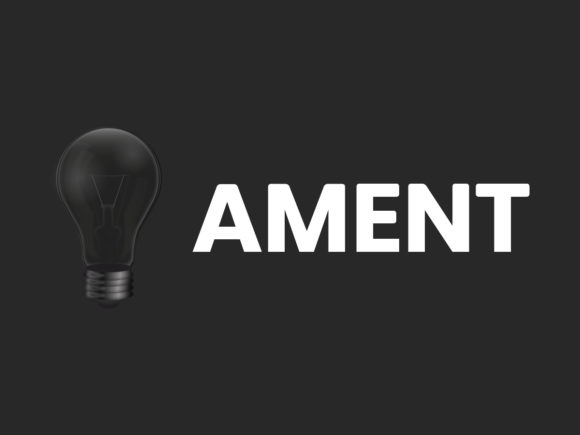
The Ament Font: A Designer’s New Best Friend
I still remember the frustration of working on a branding project, only to get stuck on finding the perfect font. My client wanted something modern, clean, and versatile, but I just couldn’t seem to find it. That was until I stumbled upon the Ament font. With its sleek, sans-serif design, I knew I had found a winner. In this article, I’ll share my experience with the Ament font, its features, and how to make the most of it in your designs.
An Honest Review of Ament Font
- ✨ Minimalist design: Ament’s clean lines and simple shapes make it perfect for a wide range of design projects.
- ✅ Versatility: This font is suitable for branding, product packaging, invitations, quotes, t-shirts, labels, posters, logos, and more.
- 💡 Legibility: Ament’s clear and concise design ensures that your text is easy to read, even at small sizes.
- 🤔 Limited character set: Ament has a standard character set, but it may not include some specialized characters or glyphs.
- ⚠️ No italic version: Ament only comes in a regular and bold weight, which may limit its use in certain design situations.
The Story Behind Ament Font
Ament font was designed with the goal of creating a clean, modern sans-serif font that’s both versatile and legible. The designer, inspired by the simplicity of urban landscapes, aimed to create a font that’s both elegant and approachable. With its sleek lines and simple shapes, Ament font is perfect for designers looking for a reliable, go-to font for their projects.
| What is the Ament font best used for? | The Ament font is suitable for a wide range of design projects, including branding, product packaging, invitations, quotes, t-shirts, labels, posters, logos, and more. |